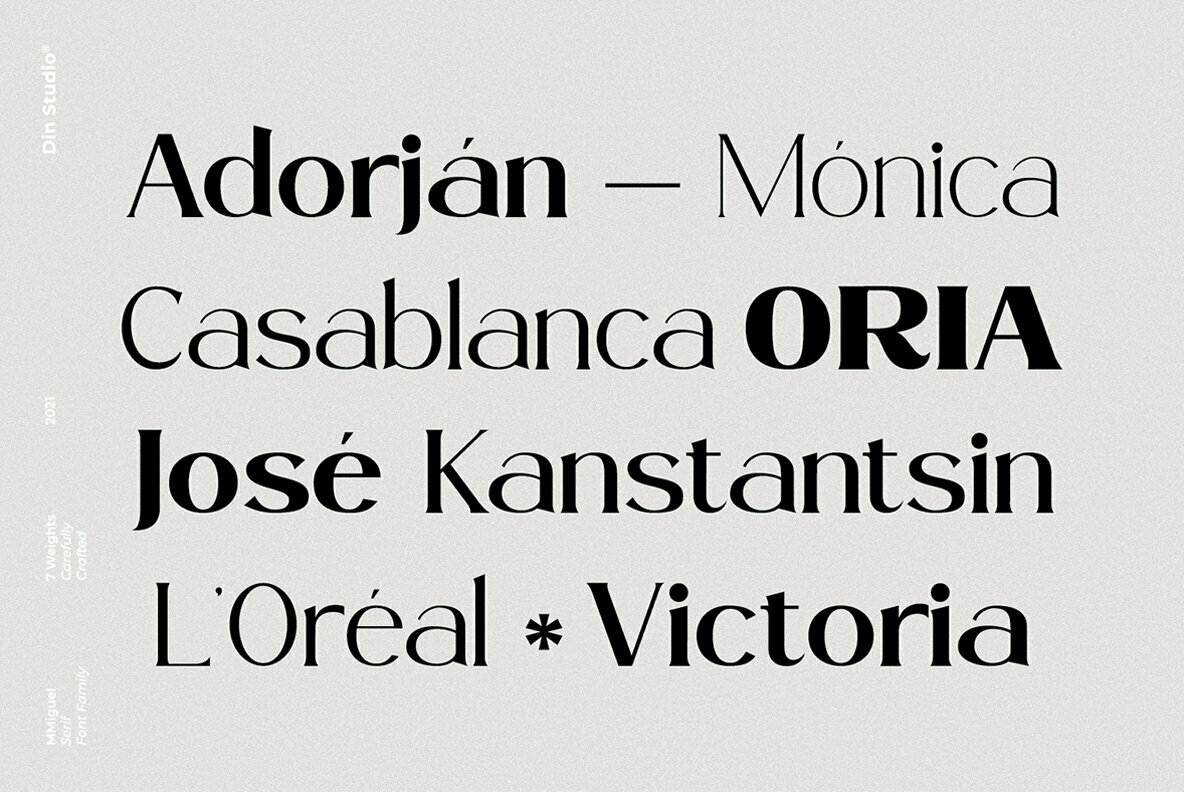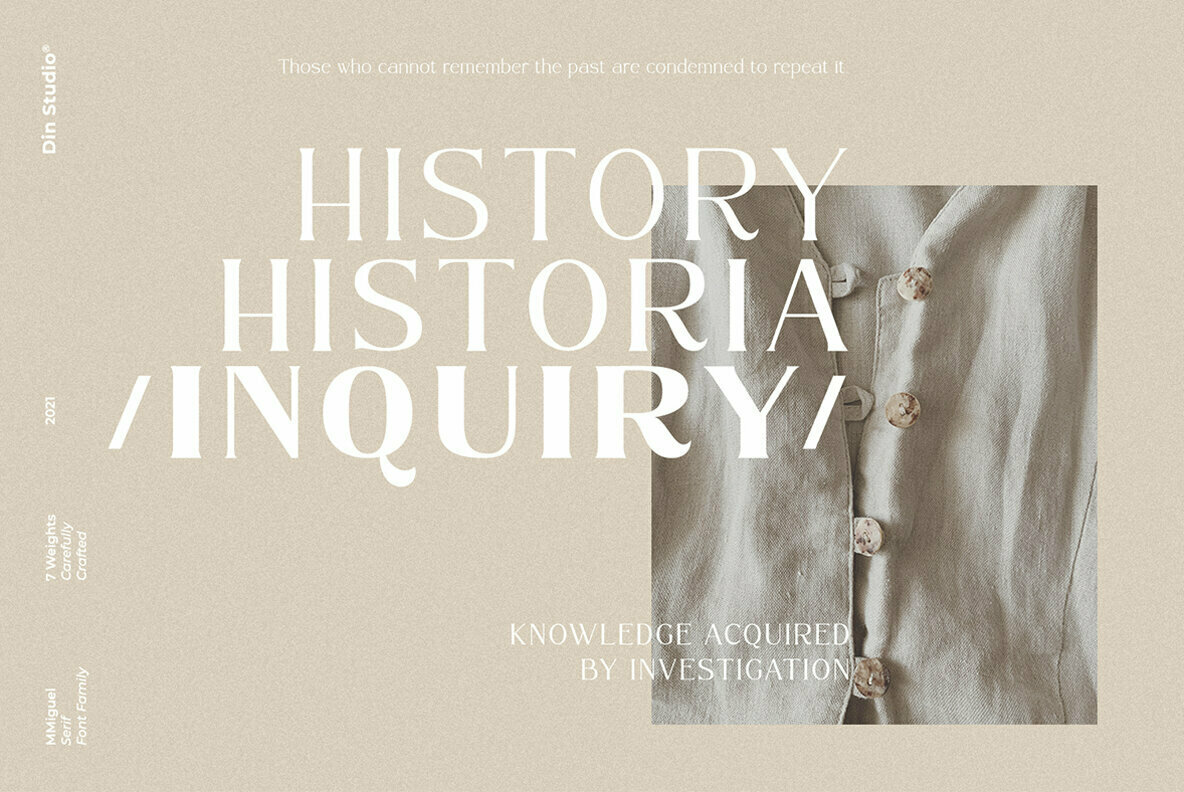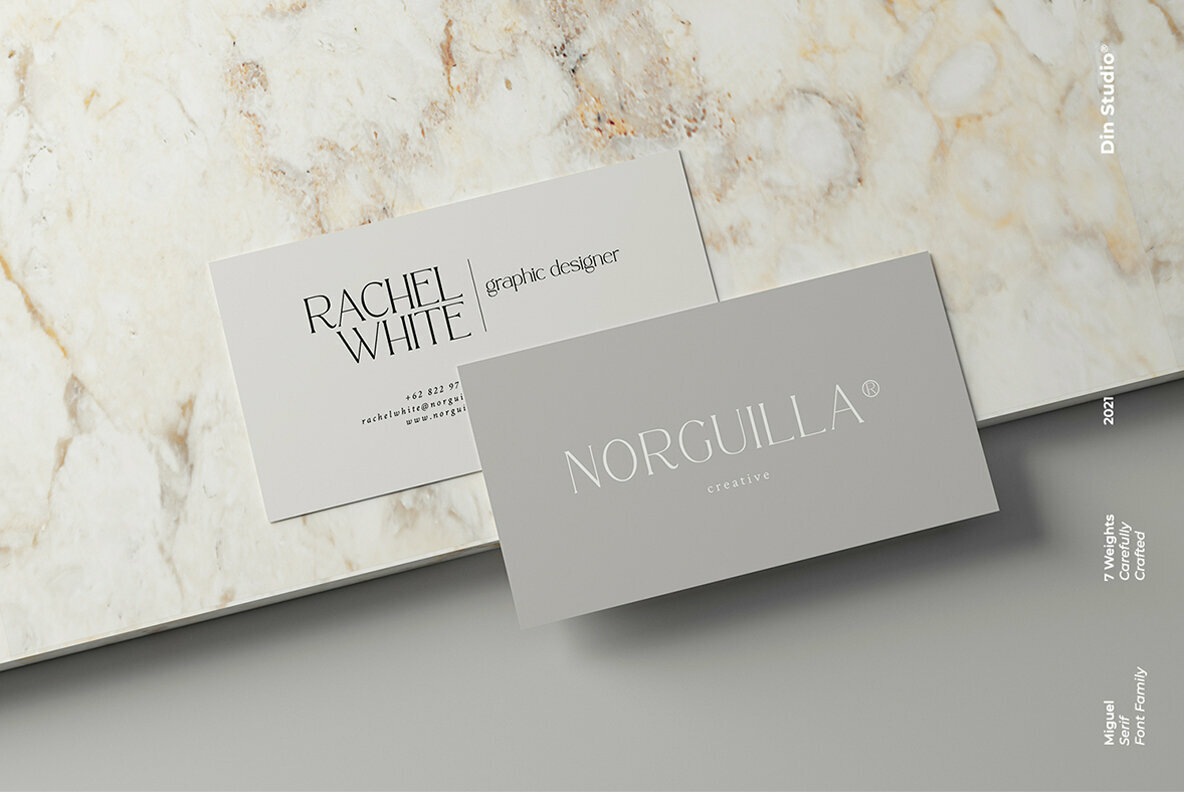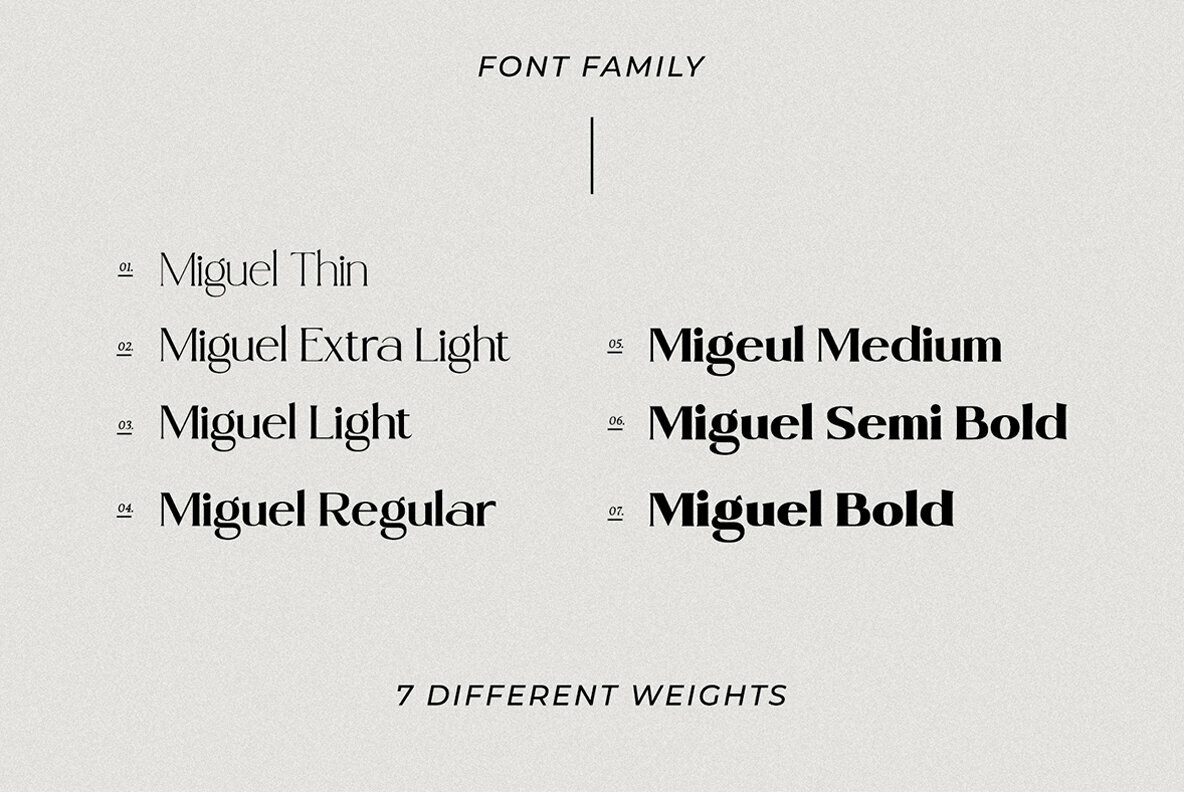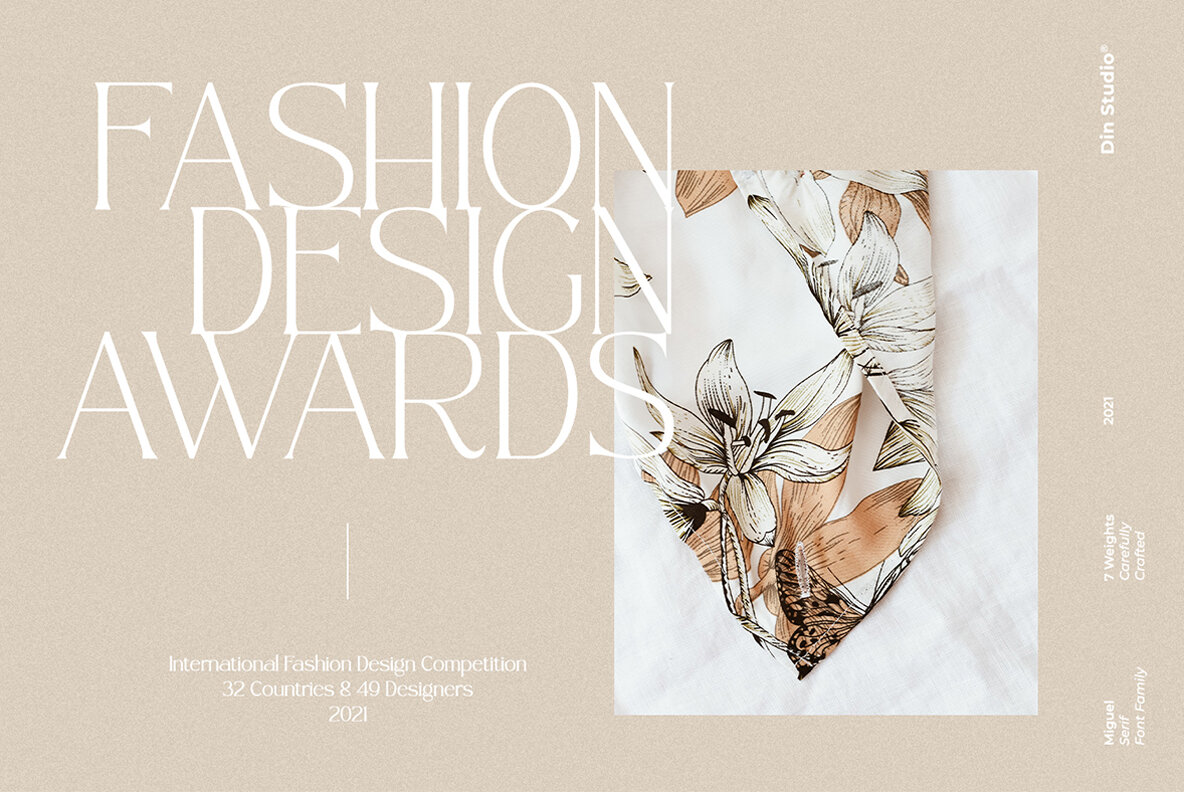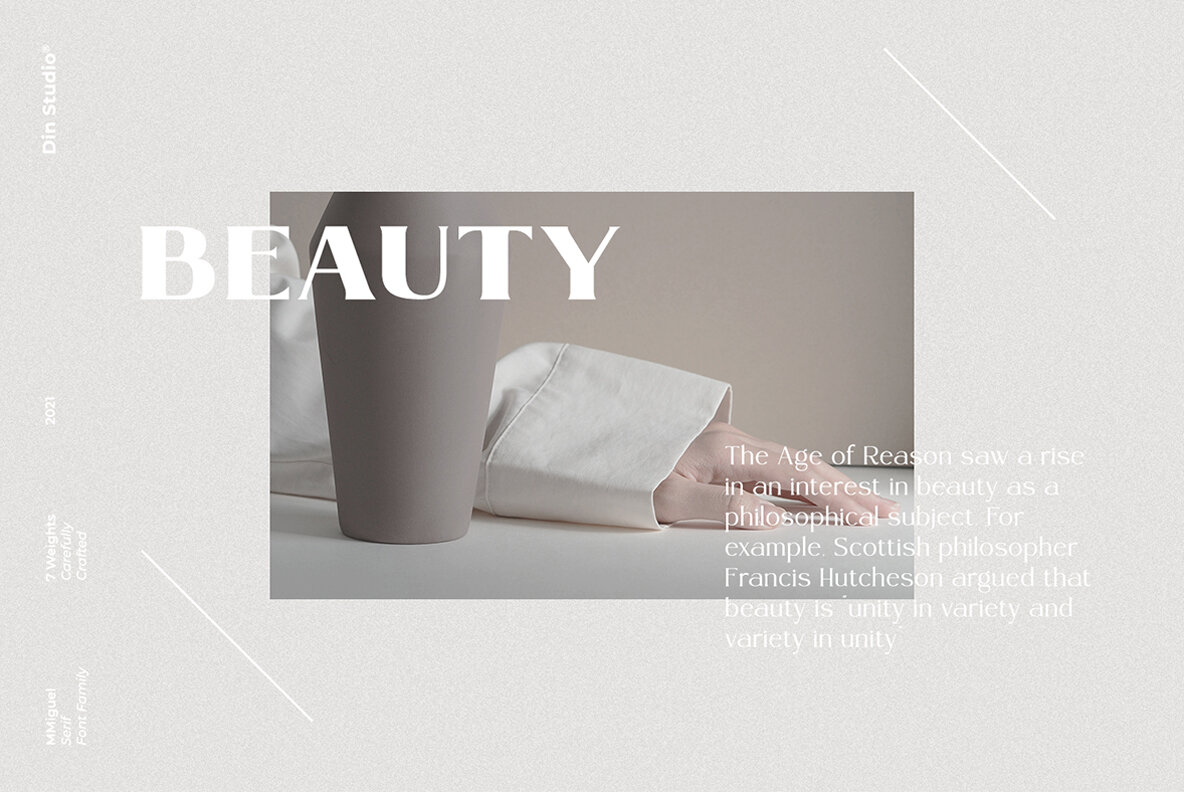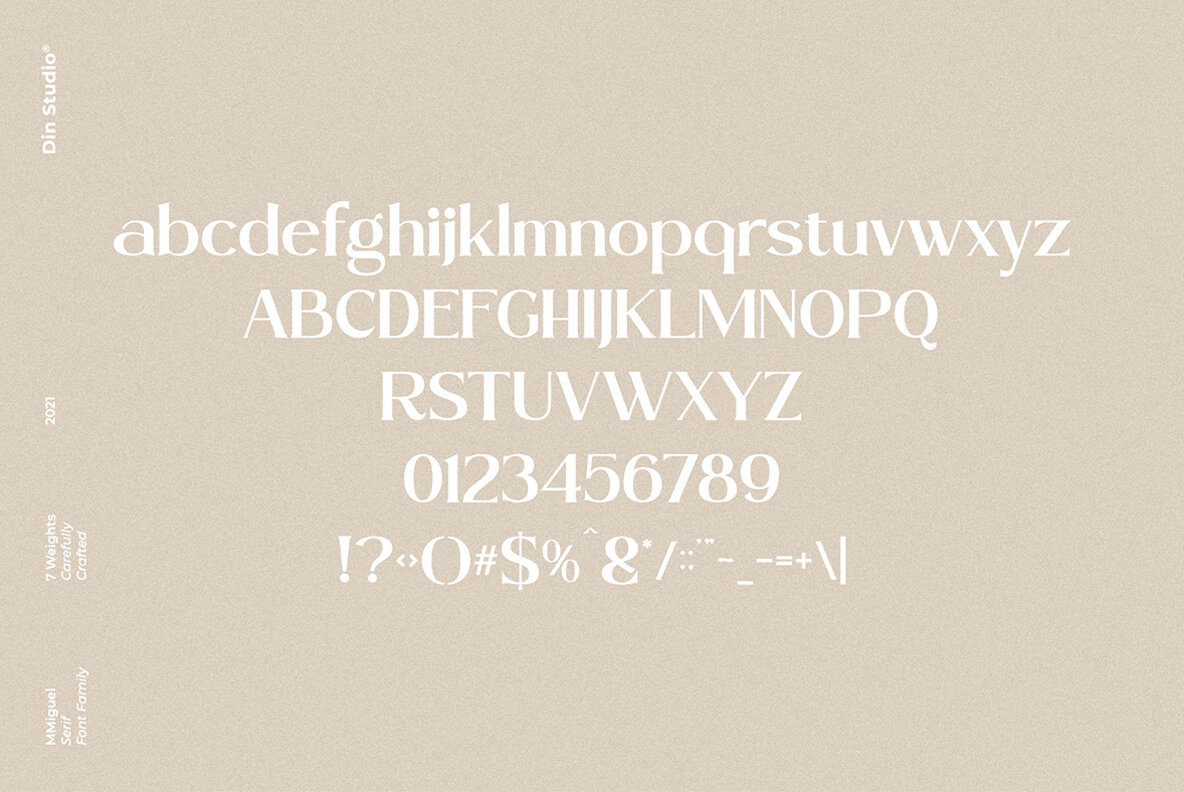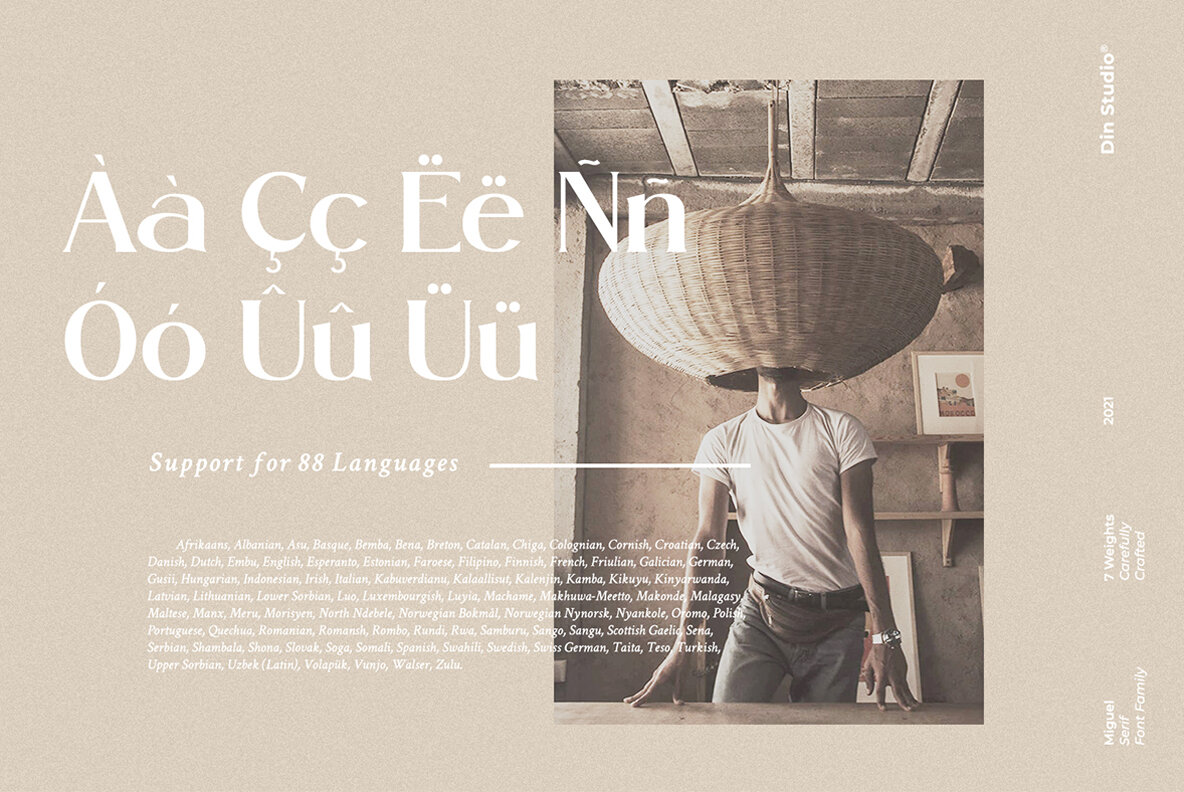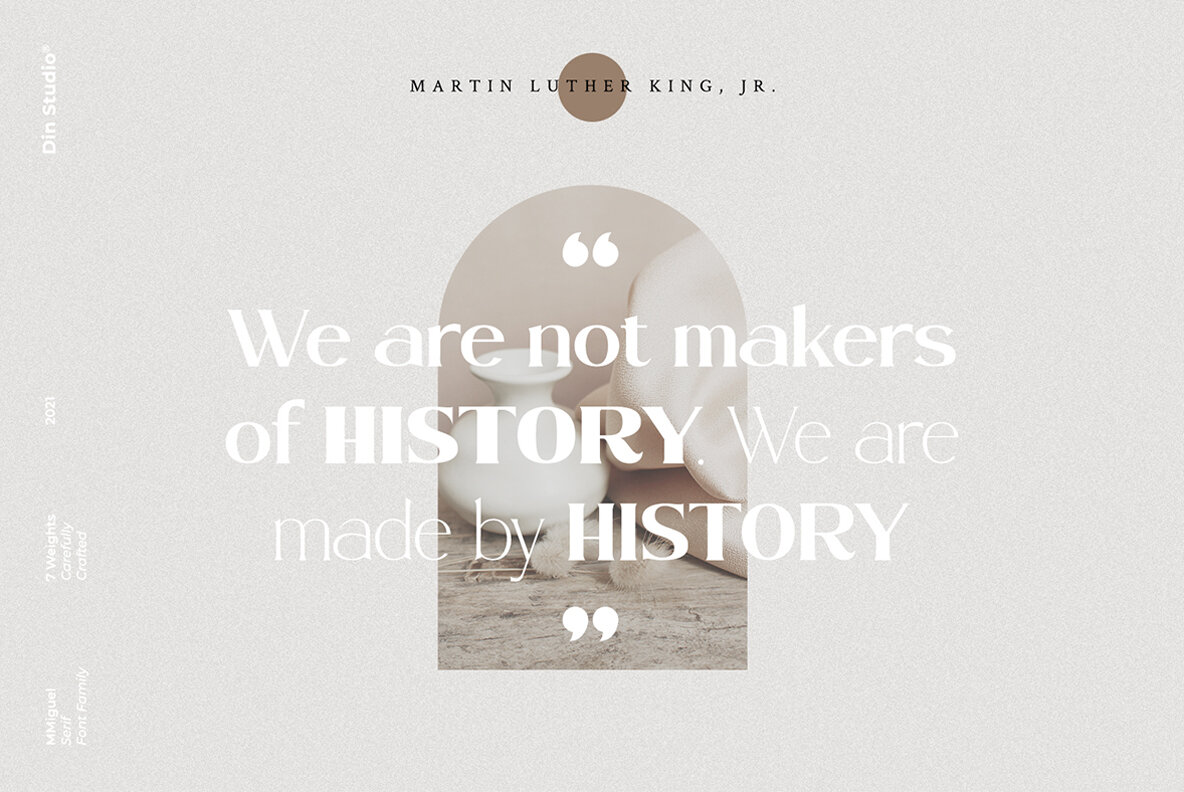
Miguel Font
Miguel Thin
Miguel Extra Light
Miguel Light
Miguel Regular
Miguel Medium
Miguel Semi Bold
Miguel Bold
Miguel is a handcrafted serif typeface designed to bring a contemporary flair to various creative projects. Its modern aesthetic makes it an ideal choice for enhancing web pages, social media branding, Pinterest banners, and printed materials. With a wide range of weights available, Miguel offers the flexibility necessary to create striking designs for diverse promotional needs.Miguel Serif Font: Modern Style for Versatile Design